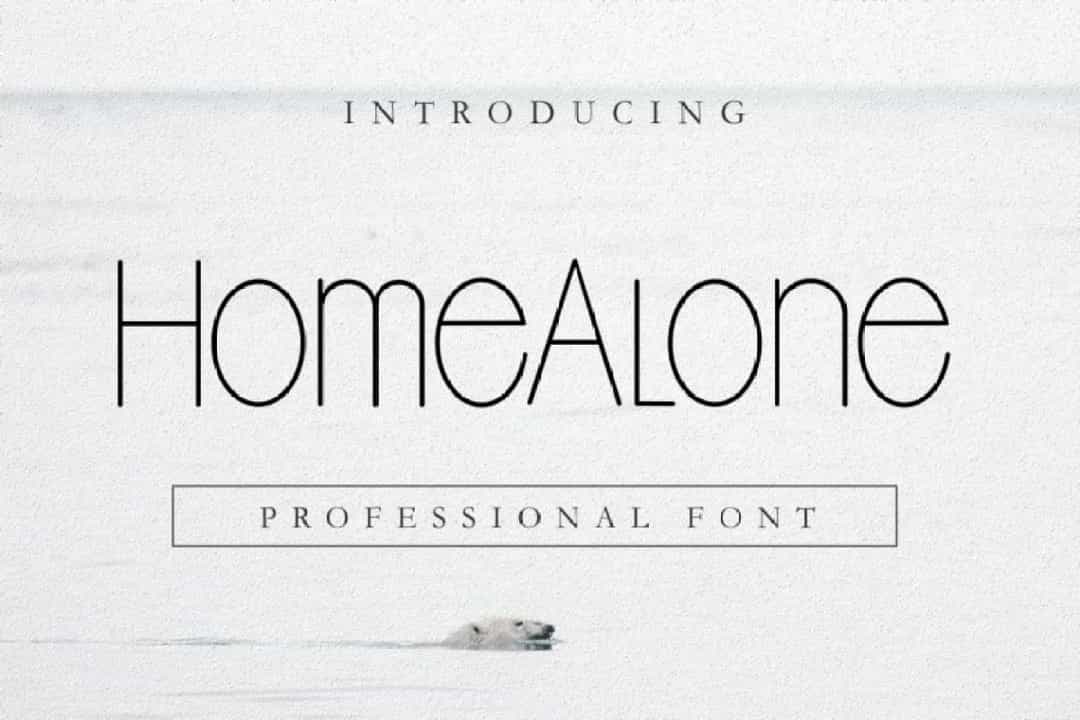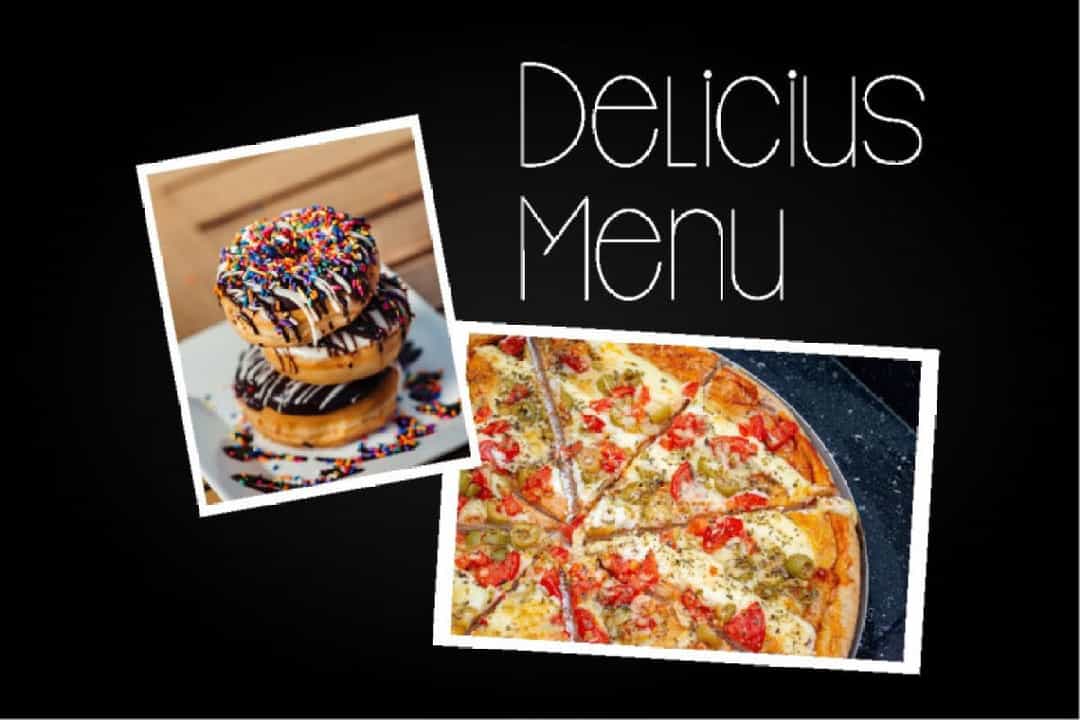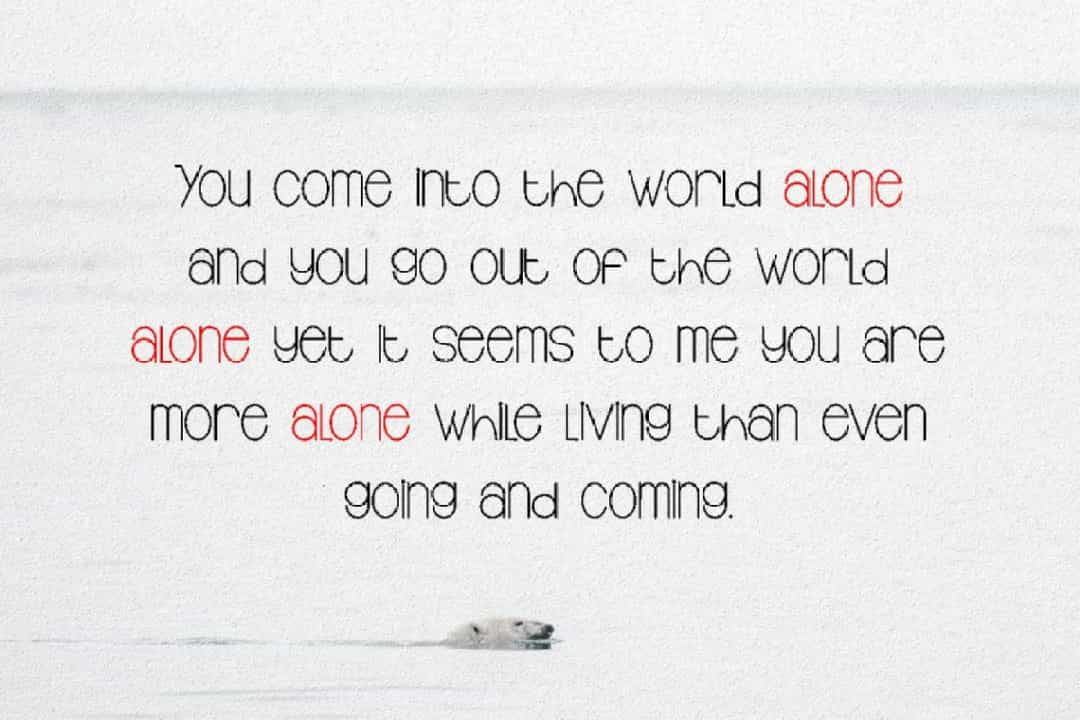
Home Alone Font is a simple elegant sans serif font which can be used for any text formatting. Regardless of the topic of the content or it’s goal, Home Alone will be an amazing addition to any font repository because it will enhance any text displayed or created by a typeface.